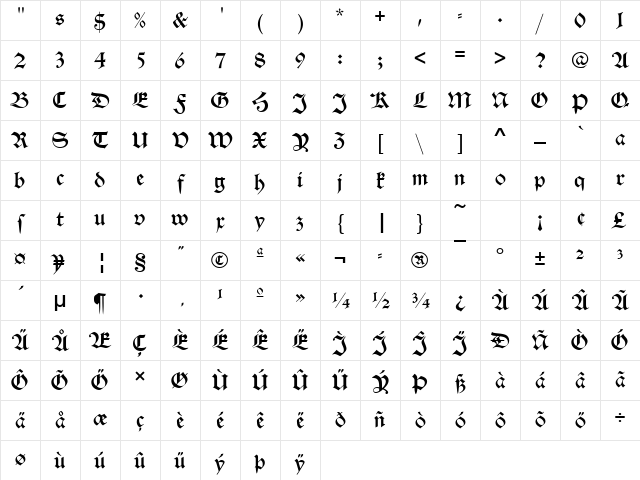
AlteSchD Regular
Design Context for AlteSchD
AlteSchD is a composed and adaptable typeface that performs quietly and consistently across a wide range of design contexts.